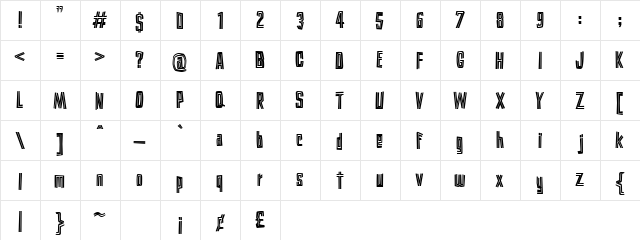
Burlesk Inline Demo Regular
Design Context for Burlesk Inline Demo Typeface
Burlesk Inline Demo brings ornamental detail and strong personality to headlines and identities, where visual impact matters more than quiet functionality.
Font Pairing: Pair with a clean neutral sans-serif for body copy to let Burlesk Inline Demo's character lead without overwhelming the composition.
Pro Tip: Treat Burlesk Inline Demo as the centrepiece of your typographic hierarchy. One strong heading set in a decorative face can carry an entire layout.